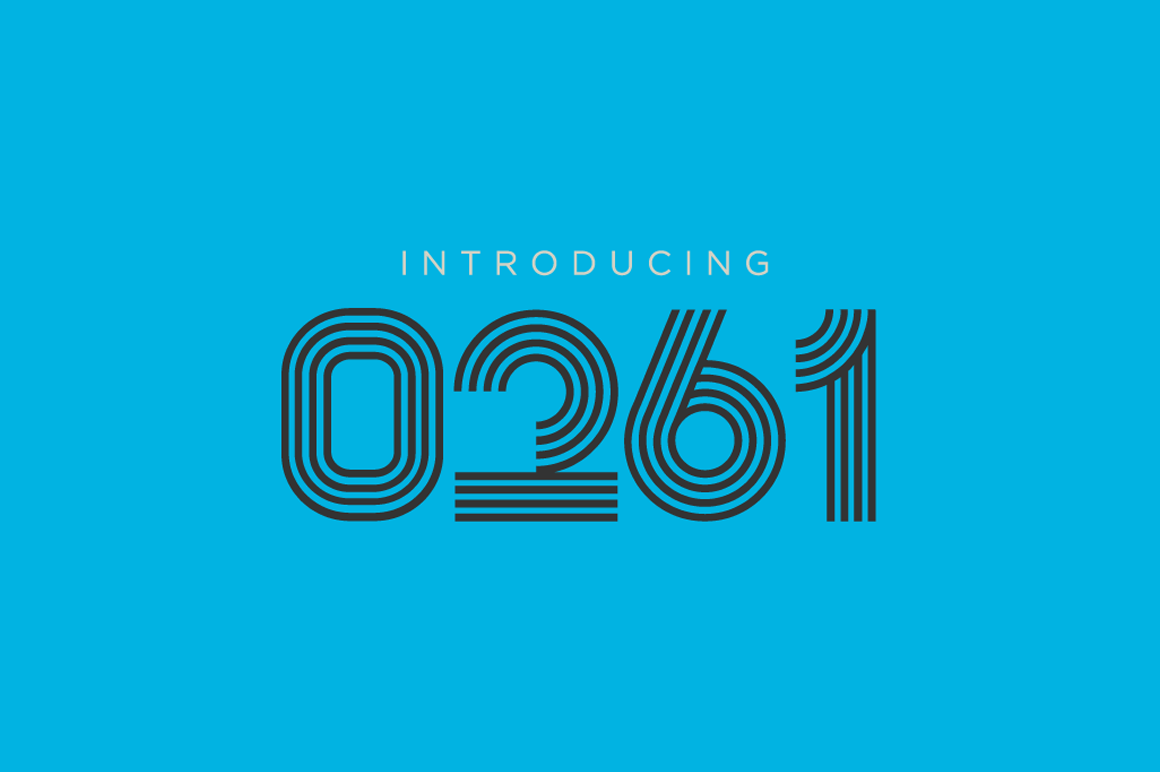
0261 - Numbers Font
0261 is a numbers display font inspired on my hometown Maracaibo, Venezuela, with a retro/funky style. I started this font doing the phone code (0261) just for fun and months later I decided to complete the numbers and add some basic symbols.